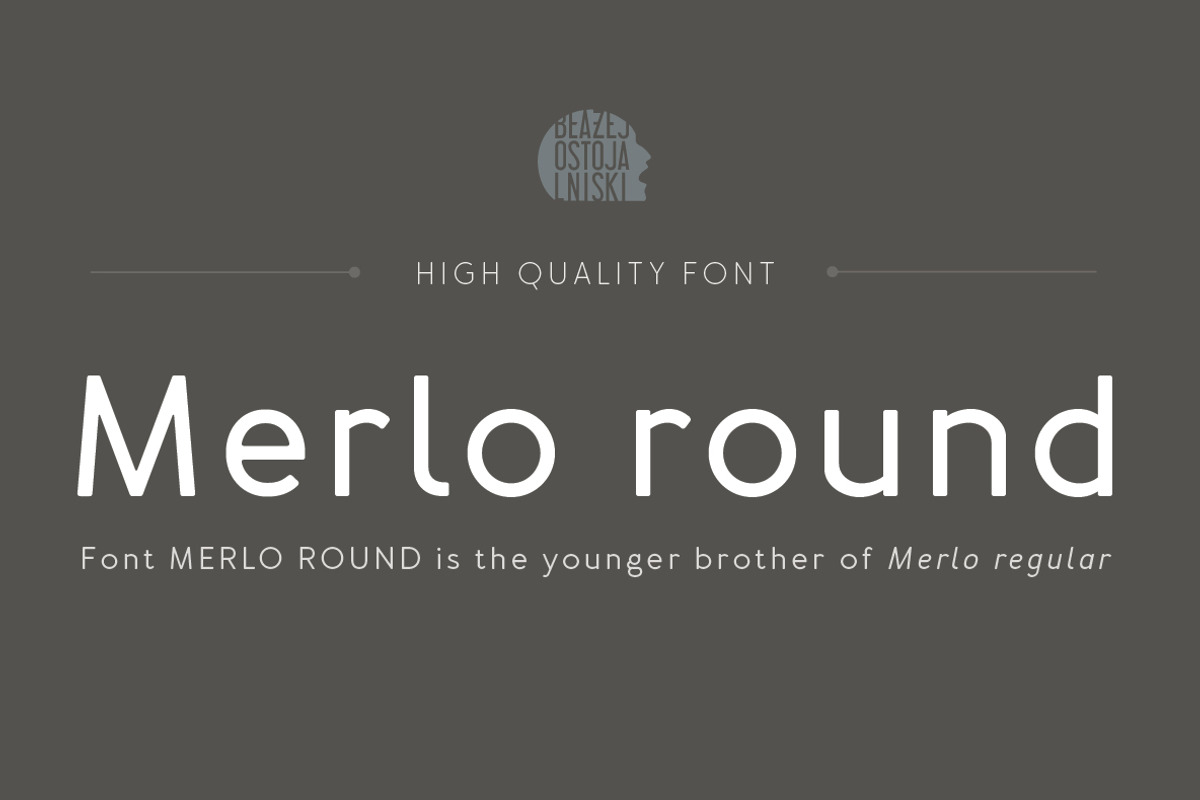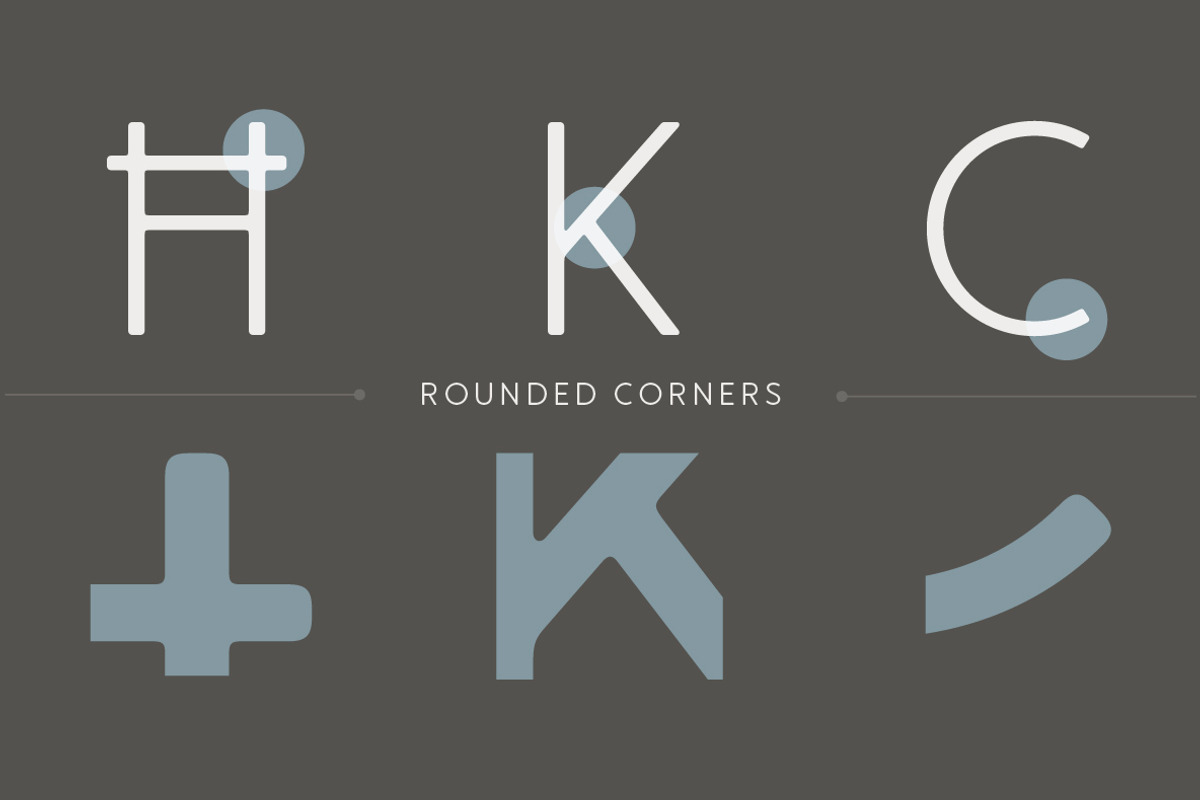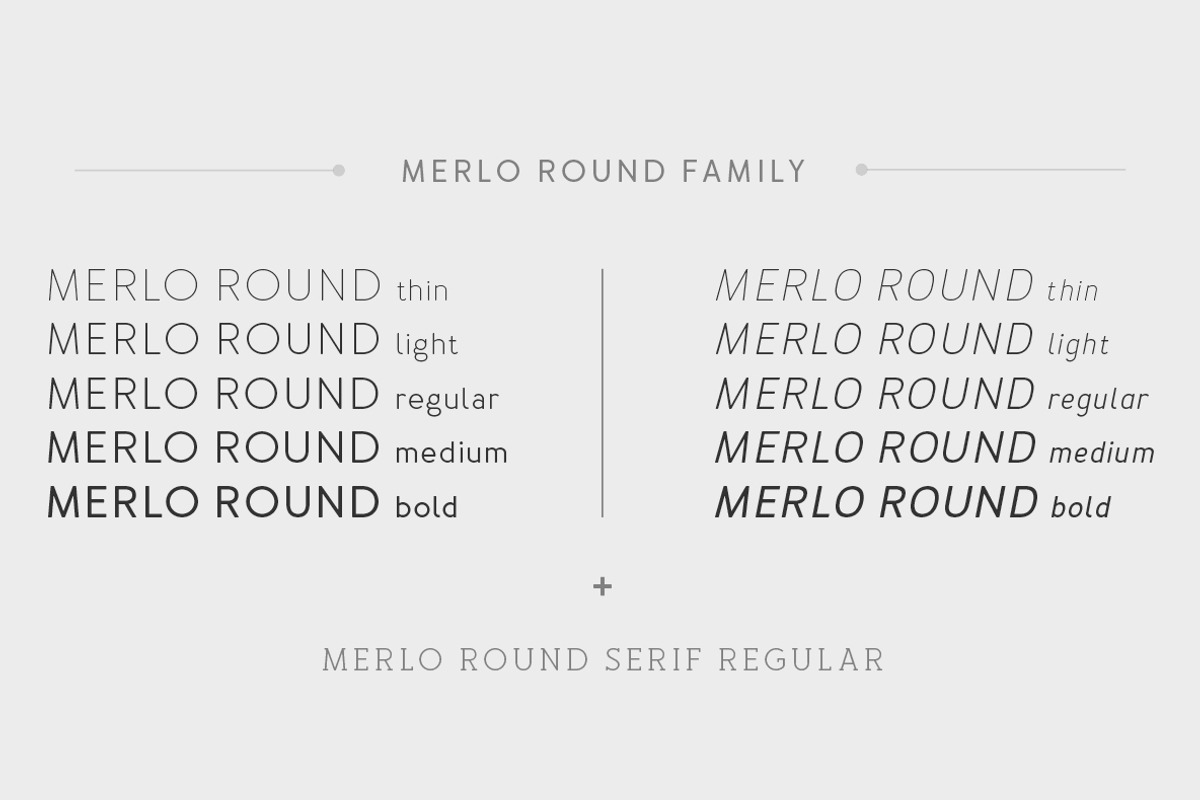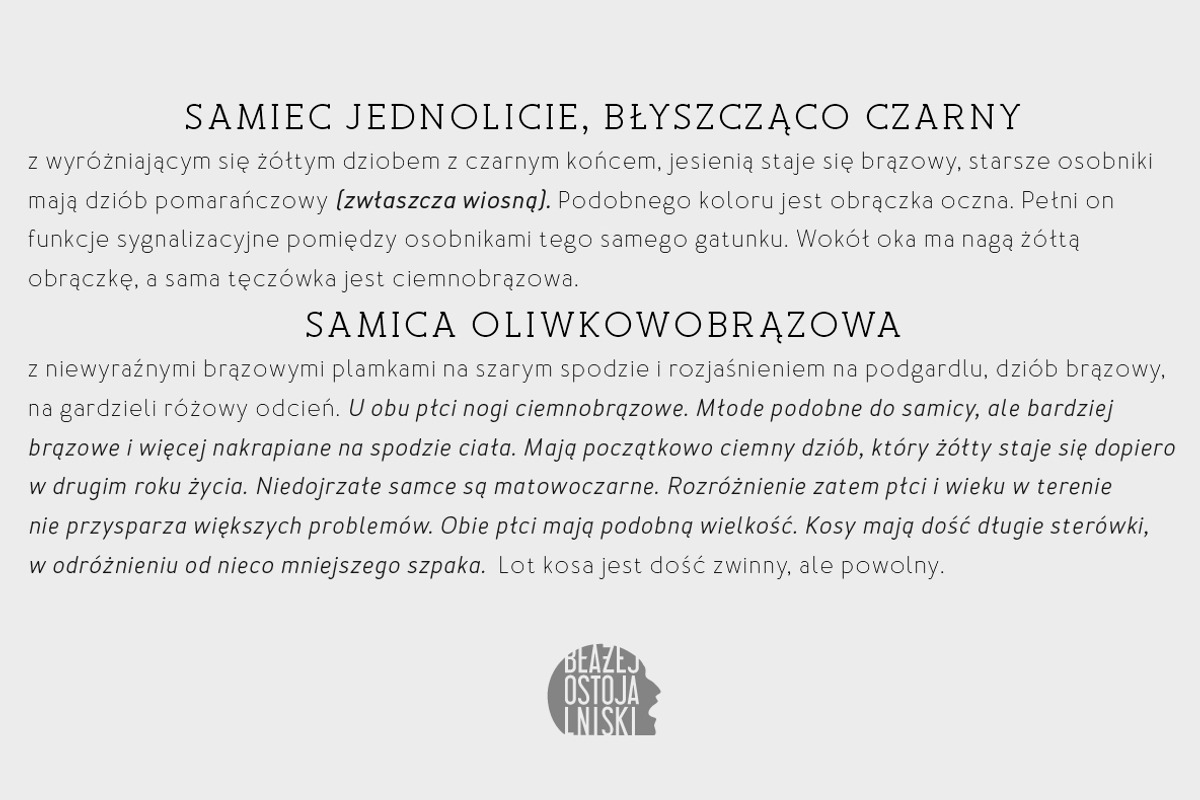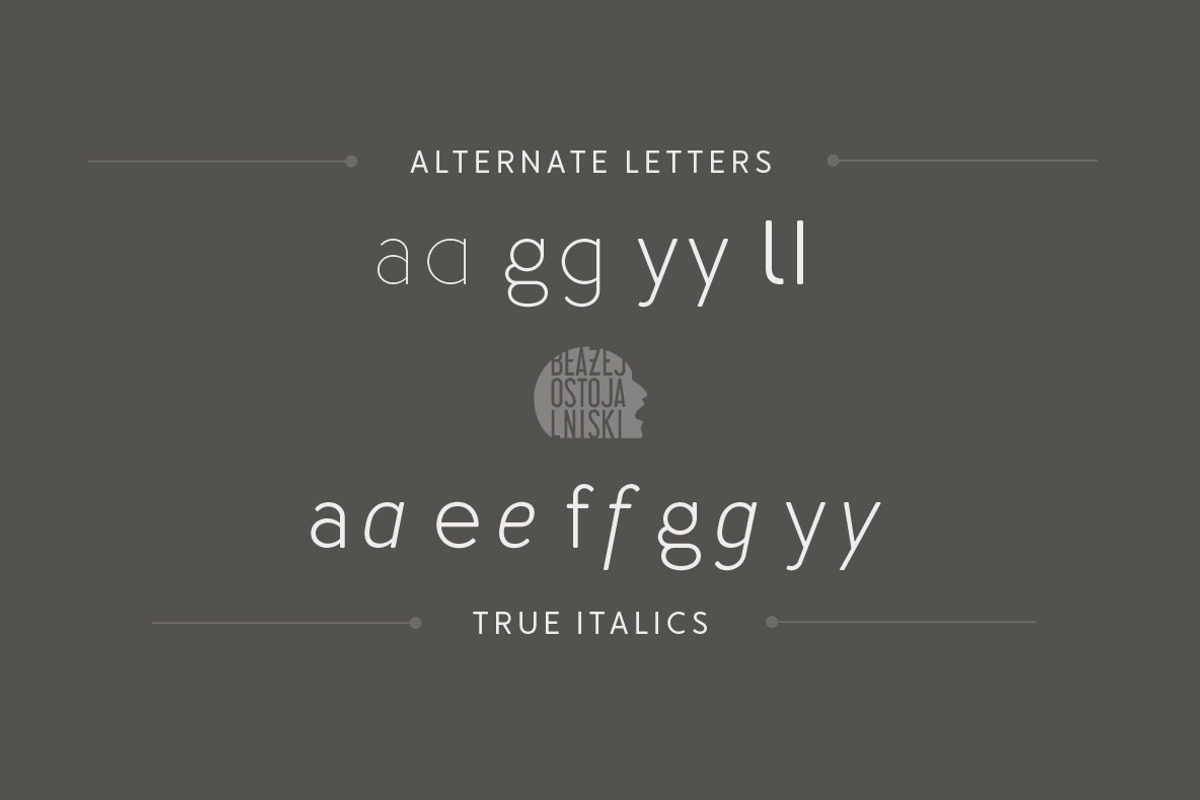
Merlo Round Family Font
Merlo Round Family Font by Blazej Ostoja Lniski is a font selected for branding, posters, packaging, typography.
- Font Merlo Round is characterized by twelve different varieties – lower and uppercase characters.
- Merlo Round Thin
- Merlo Round Thin Italic
- Merlo Round Light
- Merlo Round Light Italic
- Merlo Round Regular
- Merlo Round Serif Regular
- Merlo Round Regular Italic
- Merlo Round Serif Regular Italic
- Merlo Round Medium
- Merlo Round Medium Italic
Merlo Round Family Font by Blazej Ostoja Lniski fits naturally into Branding, posters, packaging, typography.